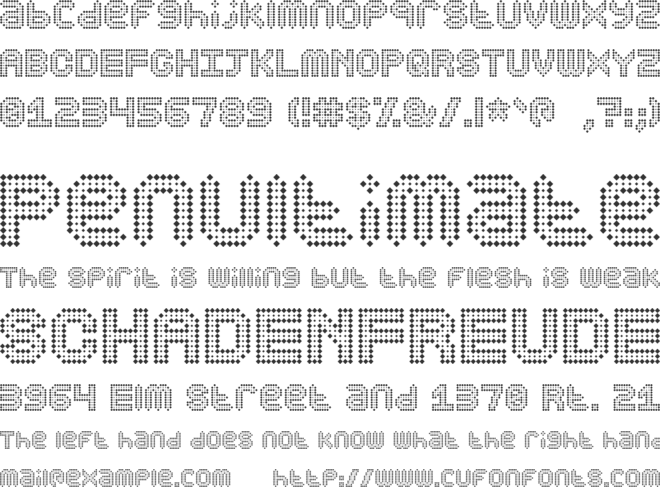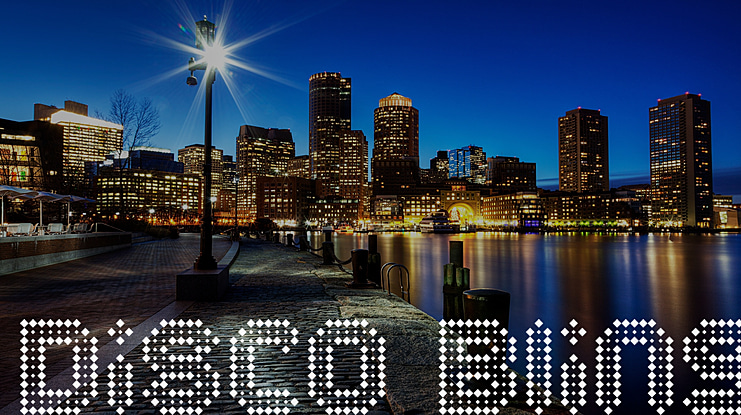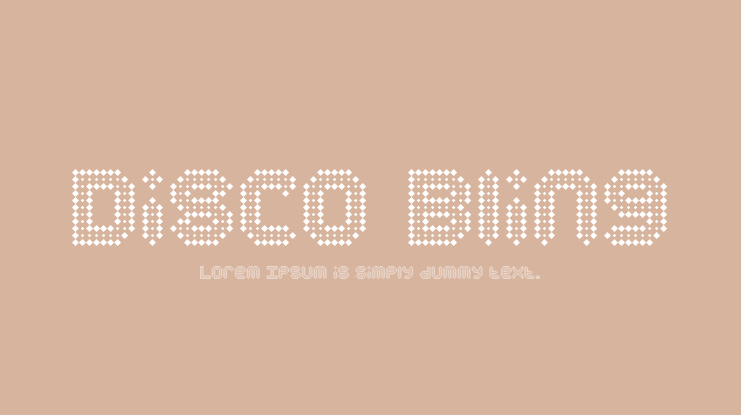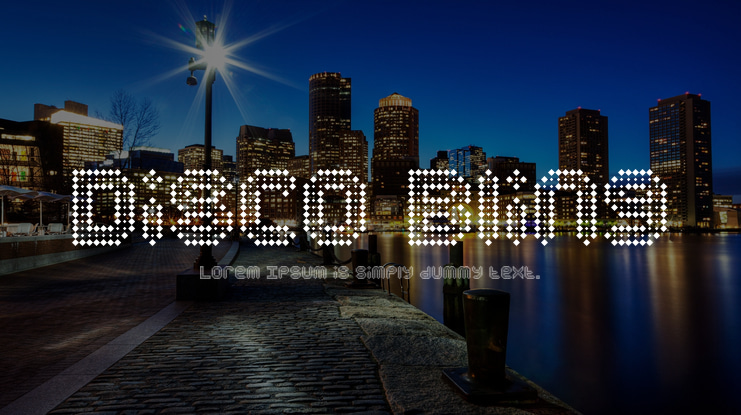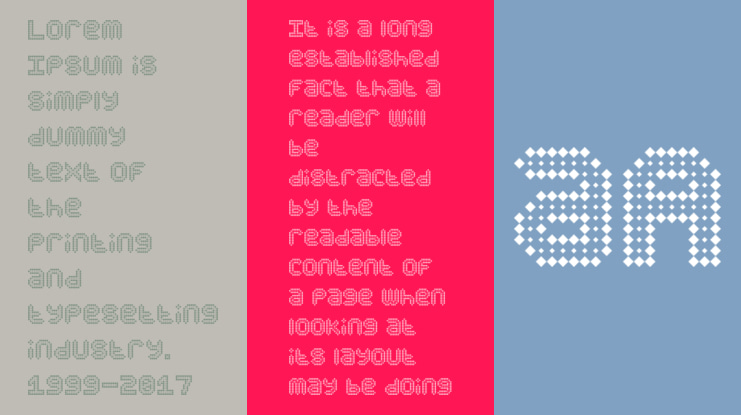
Disco Bling Font
Another simple experiment with composites, this time trying to make a font which can easily accomplish a "diamond encrusted" or "disco floor" style effect within my graphics software. SPOILER: I succeeded. :D